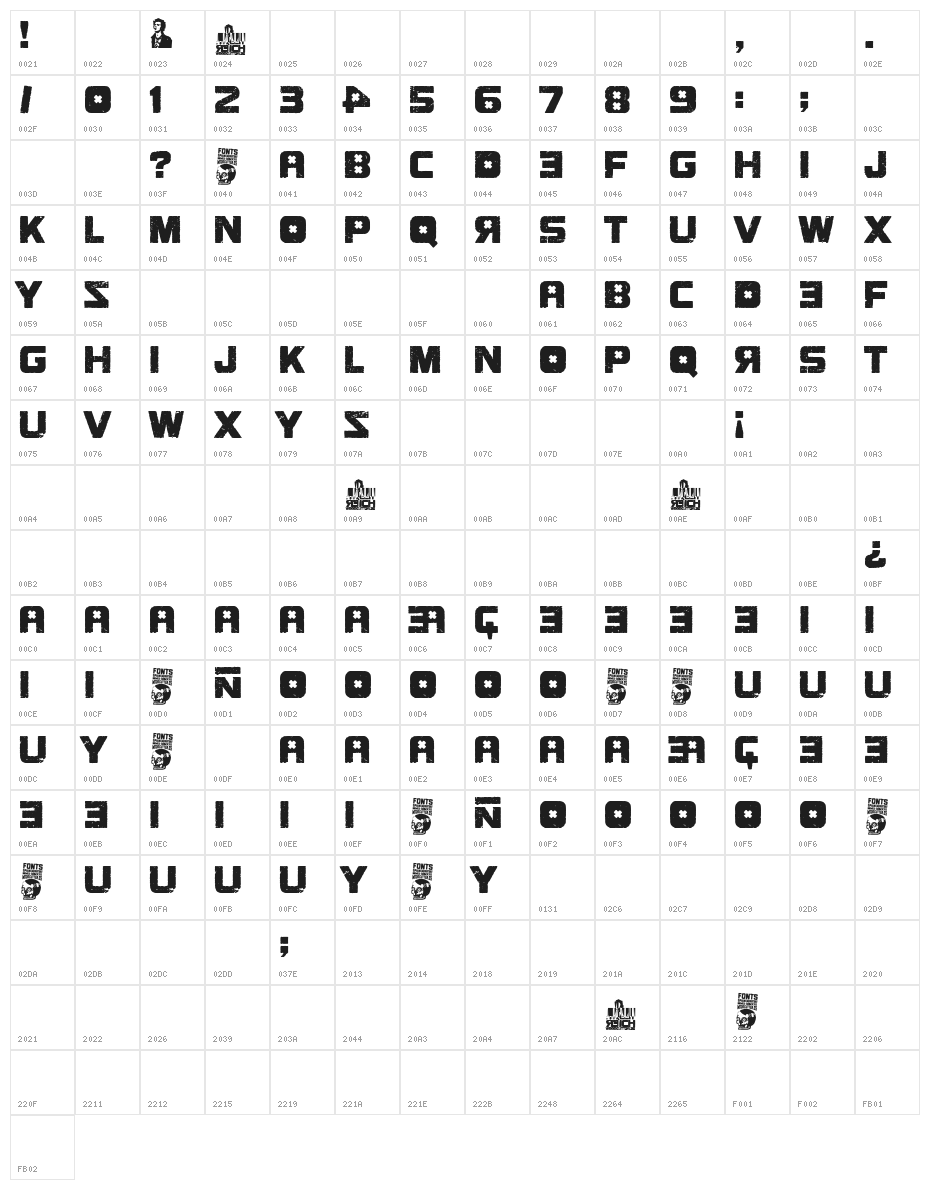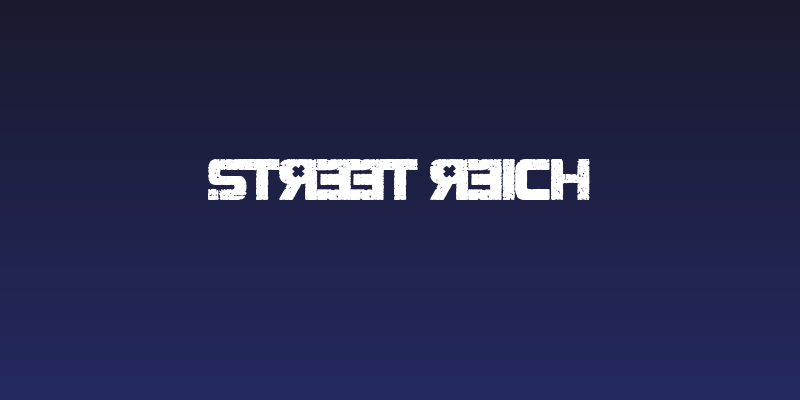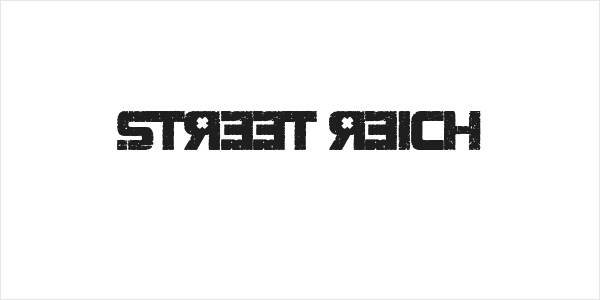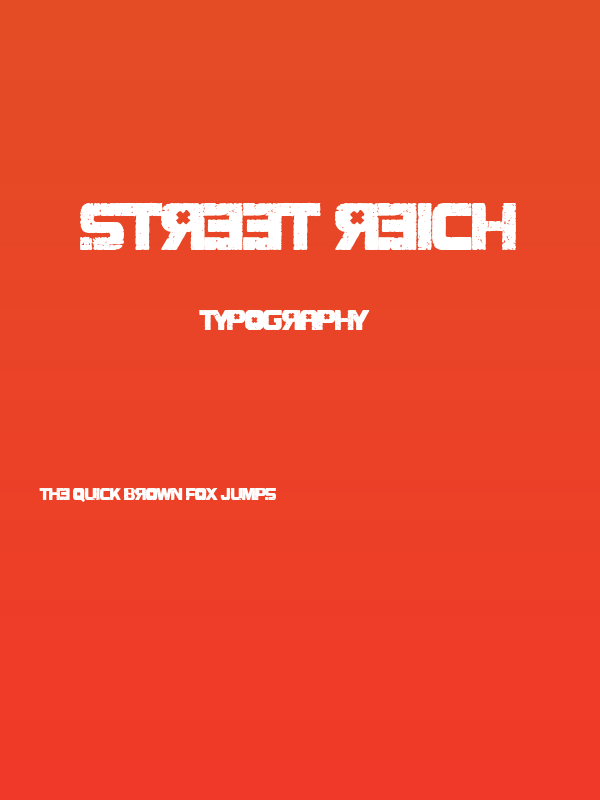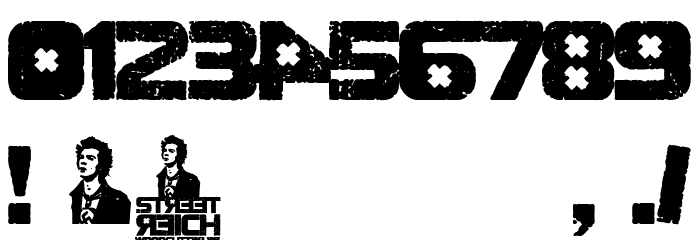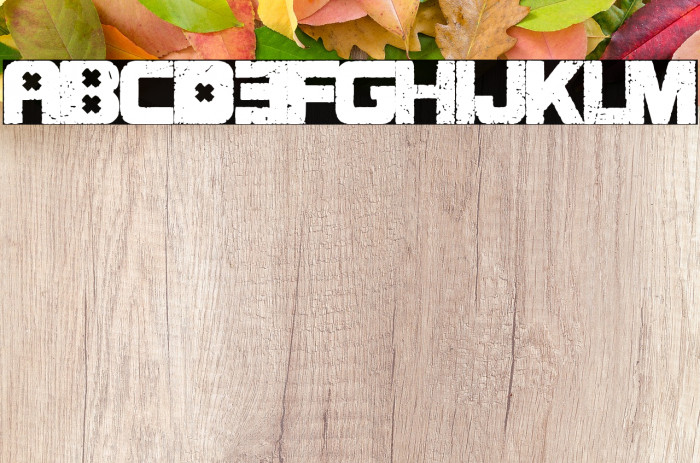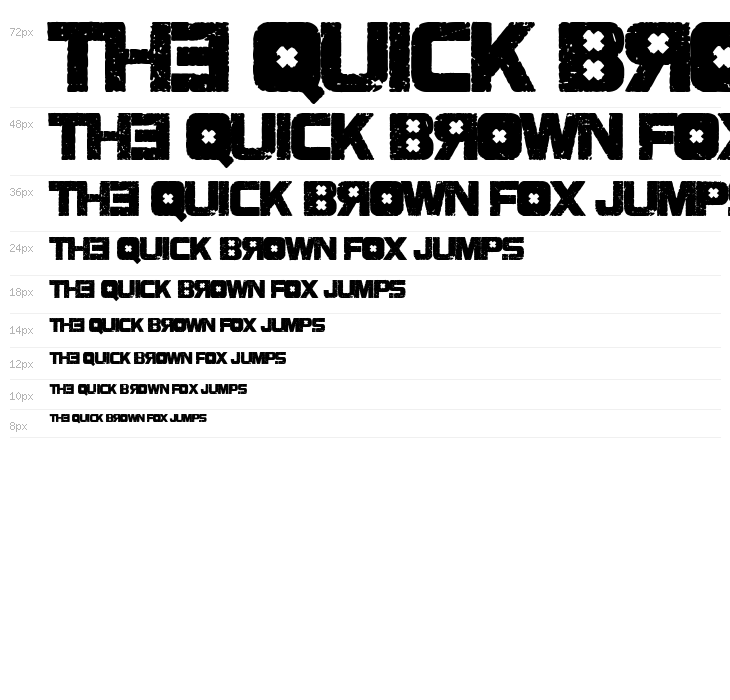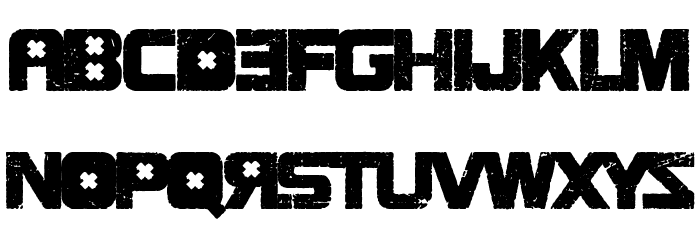
Street Reich Font
Street Reich Description
This font features a bold, distressed style with a gritty, urban aesthetic. The characters are blocky and robust, with a textured appearance that suggests wear and tear, reminiscent of street art or graffiti. The uppercase and lowercase letters maintain a consistent width, giving the font a uniform look despite its rough texture. The numbers and special characters follow the same design principles, ensuring cohesion across all elements. This font's rugged and edgy style makes it ideal for projects that aim to convey a sense of rebellion or urban culture.
| Overall Style | Urban, Gritty, Edgy |
| Use Case | Logos, Posters, Album Covers |
| Proposed Projects | Ideal for streetwear branding, music album covers, urban event posters, and graffiti-inspired artwork. |